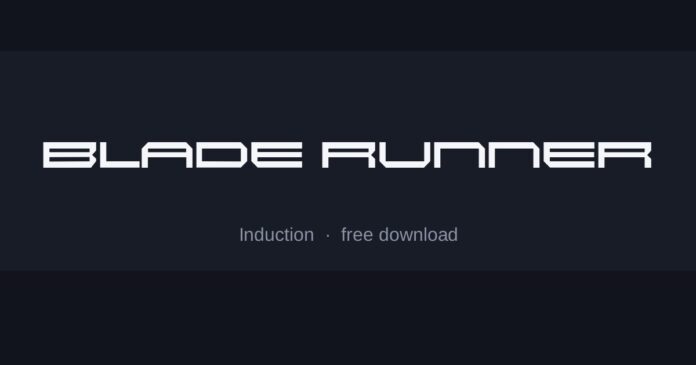
Blade Runner Font
What font is the Blade Runner logo?
The 1982 titles use a wide geometric sans set in light weight and spaced very generously — the opposite of a heavy logo, and part of why the film still looks modern.
The 2017 sequel kept the geometry but tightened it and added weight, which is worth knowing before you pick a substitute.
The fonts here
• Induction is the closest to the original — wide, light and geometric, with the same open counters.
• Injekuta Lt is squarer and slightly technical, closer to the sequel’s treatment.
• Michroma is heavier and wider, useful when the light weight disappears at small sizes.
Where the style comes from
Science fiction of the late seventies and early eighties leaned on wide geometric sans faces because they read as engineered rather than drawn — the same instinct that put similar letterforms on aircraft panels and computer terminals of the period.
Setting them light and wide, rather than bold, is what makes the result feel cold instead of loud. That spacing decision matters more than which of these three you choose.
Setting it well
• Track the letters out until the word looks almost too loose — then stop, because that is the look
• Keep the weight light; adding bold turns it into a games logo
• A faint warm glow behind the letters does more than any outline or drop shadow
Is this the exact font used for Blade Runner?
Not exactly. The original lettering was custom drawn or is not publicly licensed, so the fonts here are close recreations. Induction is the nearest match we have found.